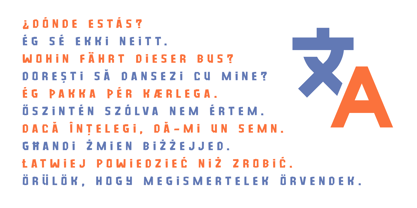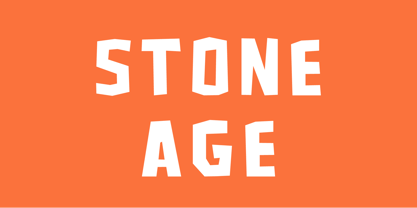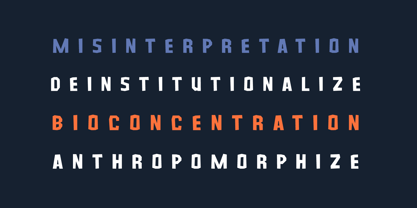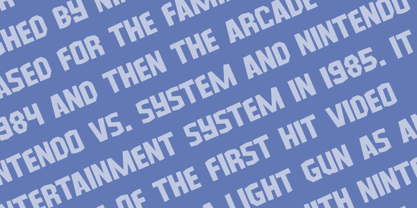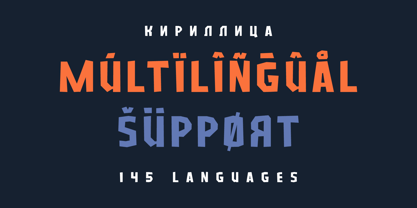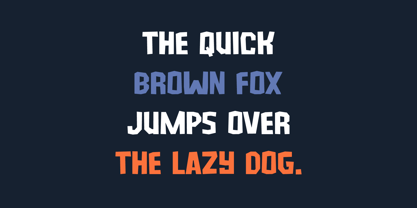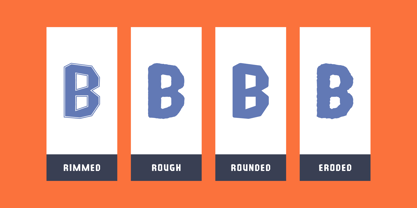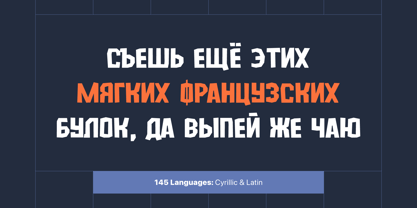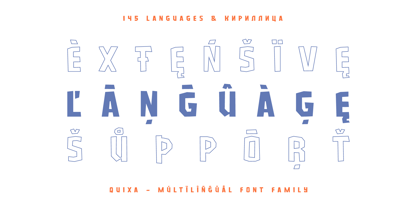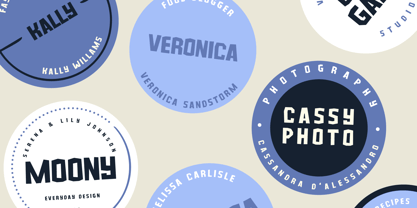
Quixa
by AlperCakici
The Quixa Font Family was designed by Alper Çakıcı and published by AlperCakici. Quixa contains 58 styles and family package options. More about this family
Quixa is a sharp, irregular display typeface carved with intention. Inspired by fractured stone, angular cuts, and raw geometry, Quixa balances structure and energy in a way that feels both primal and contemporary. Designed to stand out, Quixa delivers high-impact typography for branding, posters, packaging, album covers, gaming visuals, streetwear, editorial headlines, and experimental layouts. Its cut-stone personality gives your words tension, movement, and unmistakable presence. Quixa includes extended Latin language support and full Cyrillic support, making it suitable for global projects. Supported language groups include: • Western European languages (English, German, French, Spanish, Portuguese, Italian, Dutch, Swedish, Danish, Norwegian, Finnish, Icelandic, etc.) • Central & Eastern European languages (Polish, Czech, Slovak, Slovenian, Croatian, Hungarian, Romanian, Baltic languages, etc.) • African languages using Latin script (Swahili, Zulu, Xhosa, Somali, Shona, and more) • Cyrillic languages including Russian, Ukrainian, Serbian (Cyrillic), Macedonian, Bulgarian, Belarusian, and others..
Designers: Alper Çakıcı
Foundry: AlperCakici